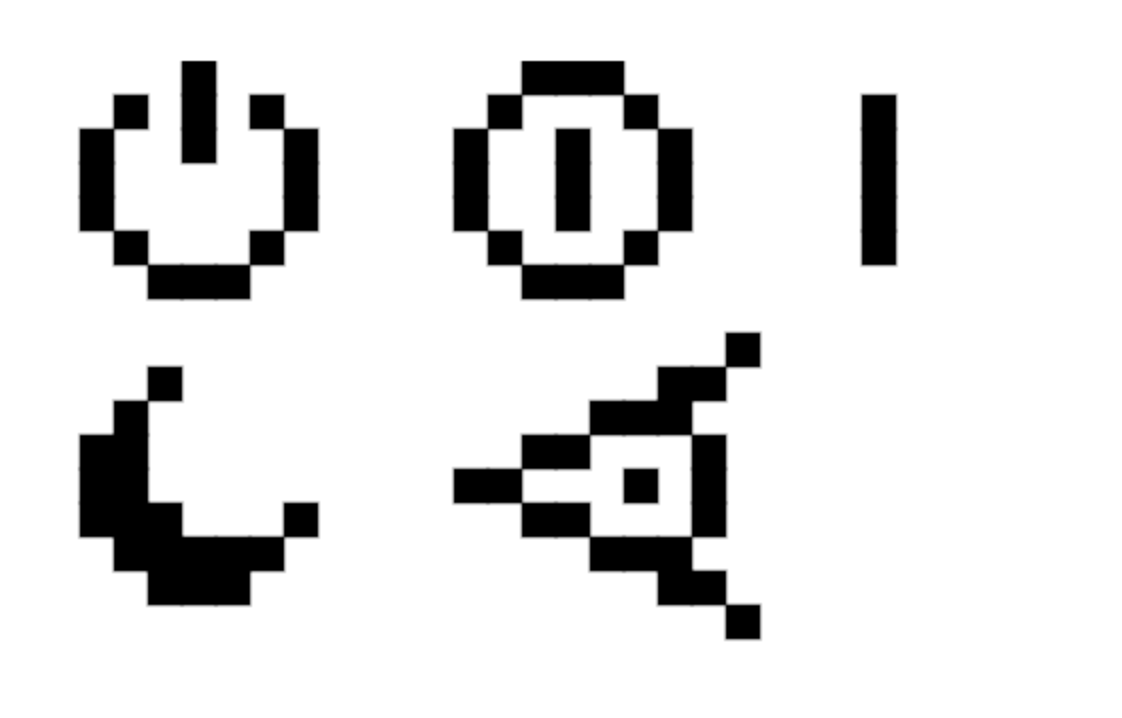
but almost minecraft font
What happened to the descenders of miniscule g and j?
I added serifs to Greek and Cyrillic glyphs to make it look less like the Windows font.
the л looks like a lambda ngl
л is like greek delta!
The last five characters in "Miscellaneous Technical" should look like this shown in the image below: